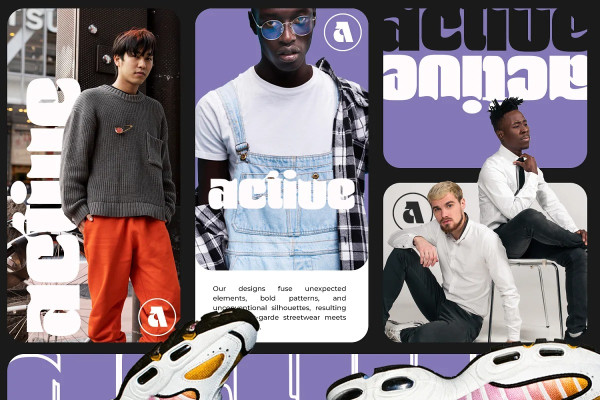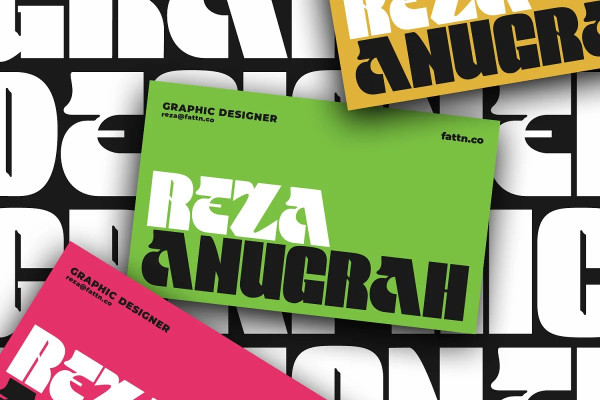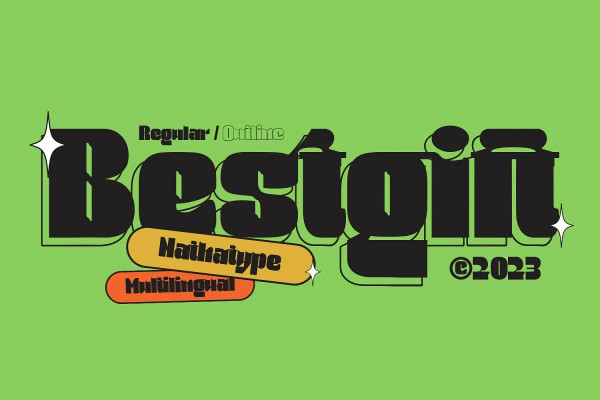
Bestgift Font
Bestgift Font is a striking display font available in regular and outline styles, both featuring a very thick weight and low contrast. With its commanding presence and versatile design, this typeface is the perfect choice for a wide range of creative projects. The very thick weight of Bestgift Font commands attention and ensures a strong visual impact. Each character is robust and substantial, making a bold statement in any composition. The thick strokes exude confidence and stability, adding a sense of reliability to your designs. With low contrast letters, it offers a balanced and uniform appearance. The consistent stroke width throughout the font creates a cohesive and harmonious visual experience.
Bestgift Font comes in both regular and outline styles, providing flexibility and versatility to suit different design needs. The regular style exudes solidity and strength, while the outline style adds a touch of modernity and sophistication. This combination allows you to create captivating designs with contrasting elements, adding depth and visual interest to your compositions. For the best legibility you can use it in the bigger text. Enjoy the available features here.